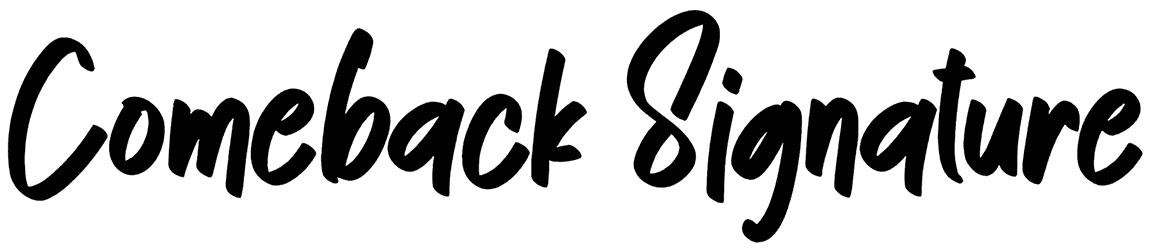
Comeback Signature Font
By choosing a manual brush lettering face, your design would be catchier, and Comeback Signature is here to get you there. This handwritten font with an almost full backup of characters is a cool pickup for various themes and projects. Embed this marker font on your intended designs, for example, postcards, business cards, packaging, or similar items, and give them a modern and elegant mood.